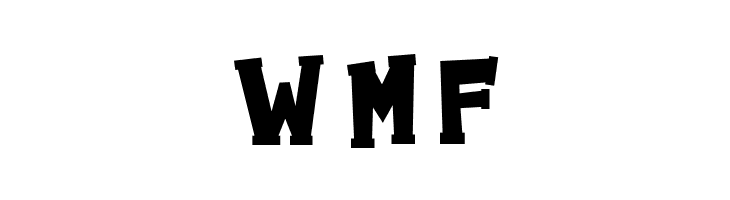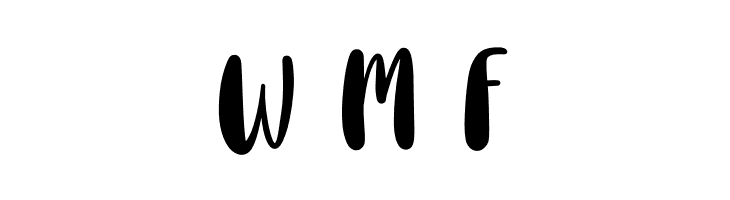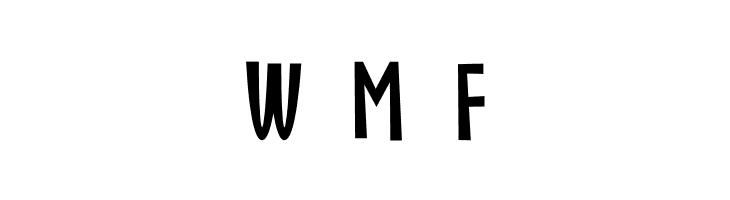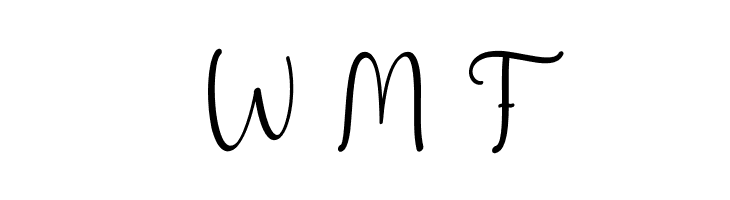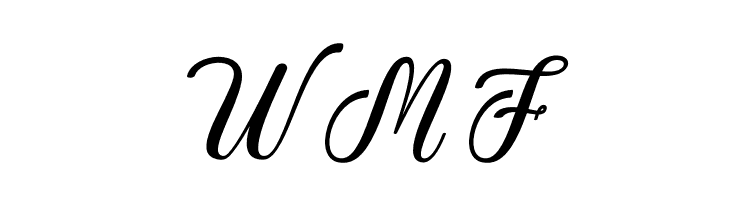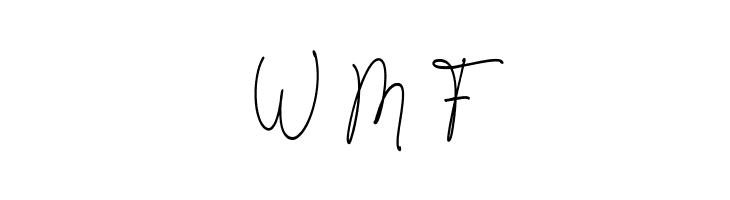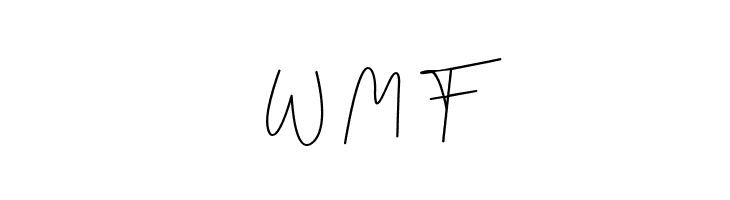
A bold, playful font with rounded, low-contrast characters.
A playful, bold handwritten font with smooth, rounded edges and lively character.
A playful, bold font with rounded, thick strokes and a hand-drawn feel.
A playful, bold, hand-drawn font with rounded strokes and a whimsical style.
A playful, bold font with exaggerated curves and a whimsical design.
A playful, hand-drawn font with bold, irregular characters.
A playful, hand-drawn font with rounded, bold characters.
A bold, expressive handwritten font with thick, flowing strokes.
A bold, high-contrast serif font with pronounced serifs and a classic style.
A lively and expressive handwritten font with fluid strokes and playful elegance.
An elegant, cursive font with fluid, connected letters and varying line thickness.
A bold, modern font with tall, narrow characters ideal for impactful headlines.
A bold, modern font with tall, narrow characters and strong visual impact.
A bold, decorative font with mermaid-themed motifs and a strong visual impact.
An elegant, flowing script font with ornate uppercase and connected lowercase letters.
A graceful, cursive script font with flowing, connected letters and elegant flourishes.
An elegant, cursive italic font with a calligraphic style.
A playful and elegant script font with smooth, rounded edges and a flowing style.
A dynamic, flowing script font with smooth, cursive strokes.
An elegant, flowing script font with bold, cursive letterforms.
An elegant, flowing script font with a natural handwritten style.
A playful, festive script font with bold, flowing letterforms and medium contrast.
A whimsical script font with elegant, flowing cursive letters and decorative flair.
An elegant, flowing script font with a handwritten appearance.
An elegant, flowing script font with decorative flourishes, perfect for festive designs.
Elegant handwritten script font.
A playful, festive script font with flowing, interconnected letters and decorative flourishes.
A charming and elegant script font with flowing, cursive letterforms.
A festive, cursive font with elegant loops and swirls, perfect for holiday themes.
A lively, expressive handwritten font with fluid, cursive strokes.
A whimsical, hand-drawn font with tall, narrow characters and festive star accents.
A whimsical and festive script font with playful curves and a hand-drawn feel.
A festive, elegant script font with intricate swirls and loops.
A flowing, cursive script font with elegant, connected strokes.